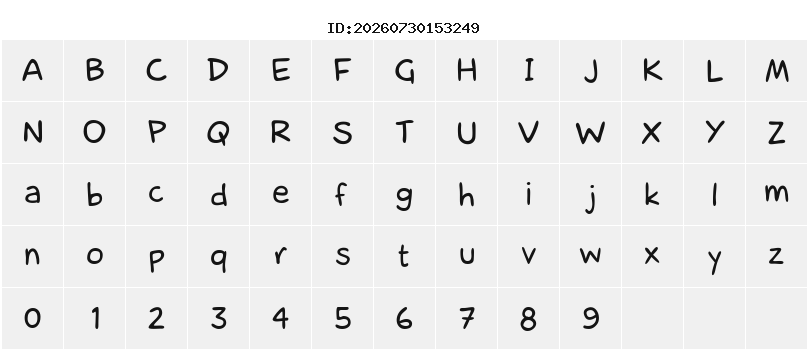
laCartoonerie Preview
• Font Name: laCartoonerie
• Full Font Name: laCartoonerie
• PostScript Name: laCartoonerie
About laCartoonerie.ttf
laCartoonerie.ttf is a modern, elegant sans-serif font designed for ultimate readability and visual harmony. Perfect for branding, headlines, web design, and print materials.